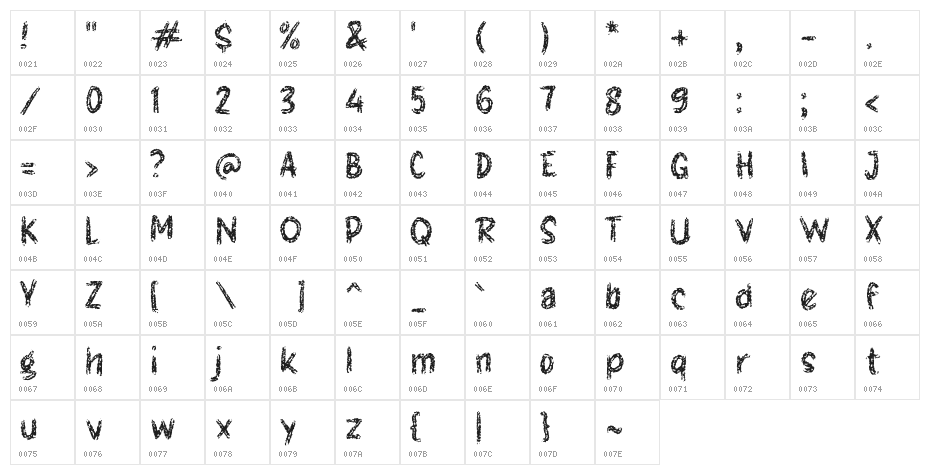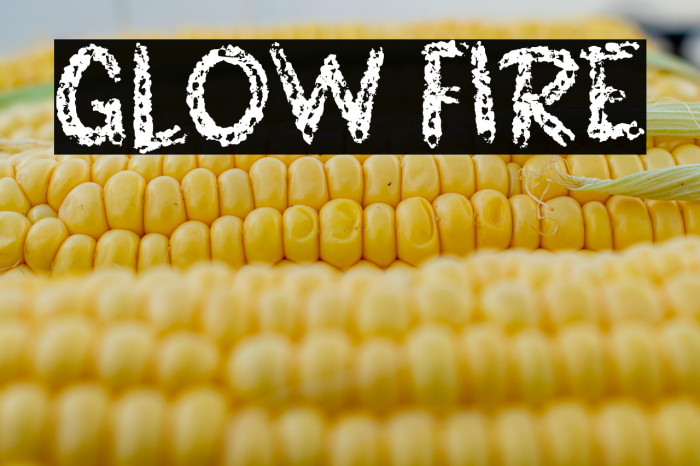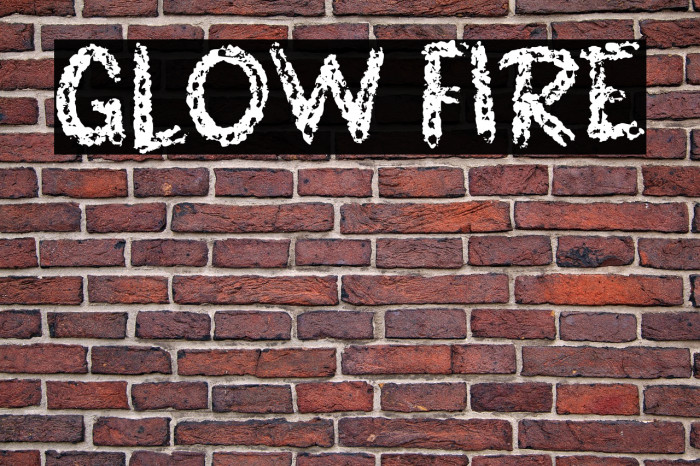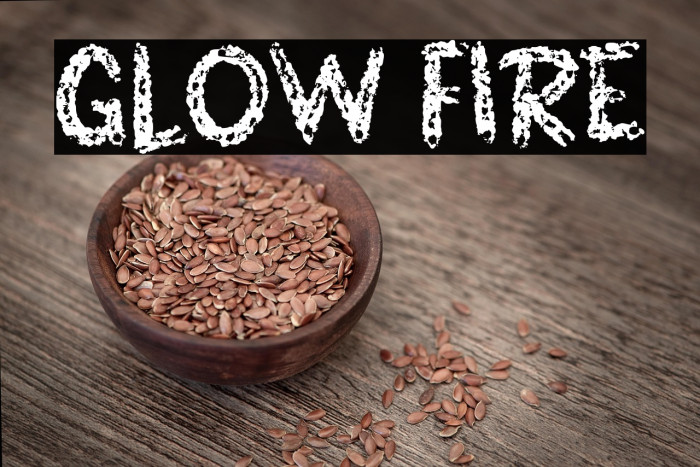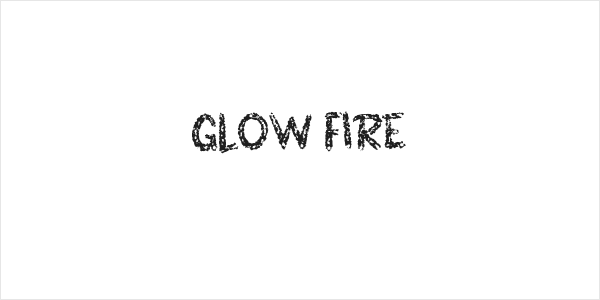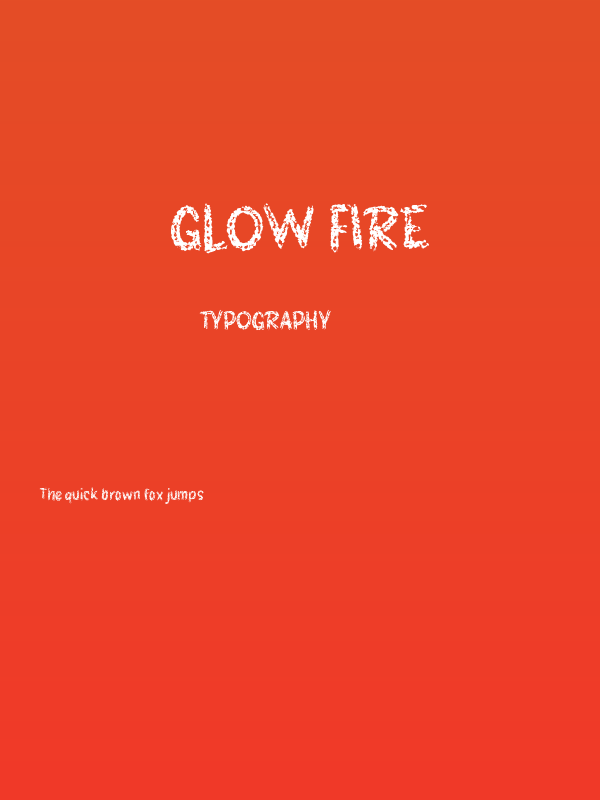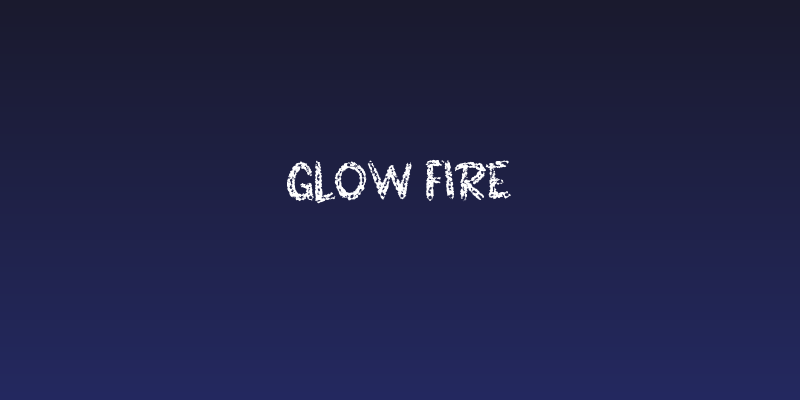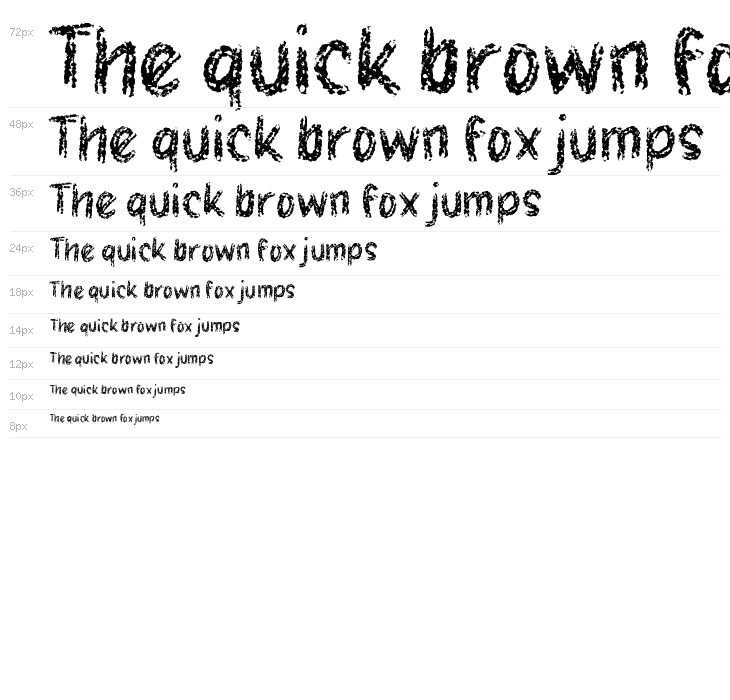
GLOW FIRE Font
GLOW FIRE Description
This font features a textured, distressed appearance that mimics the effect of glowing embers or fire. The characters are bold and have an irregular outline, giving them a dynamic and energetic feel. The uppercase and lowercase letters maintain a consistent style, with a slightly rough and uneven edge that adds to the overall fiery aesthetic. Numbers and special characters follow the same design, ensuring a cohesive look across all text elements. The font's unique style makes it stand out, ideal for projects that require a bold and eye-catching typeface.